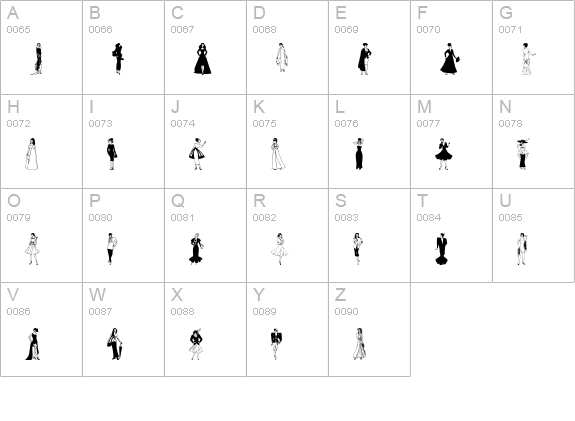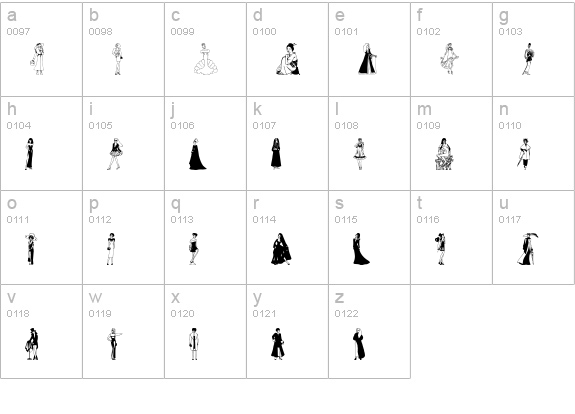
Fashion Ladies Font Details
Fashion Ladies font is a stylish and elegant typeface that exudes sophistication and femininity. With its delicate curves and graceful lines, this font is perfect for adding a touch of glamour to any design project. Whether you're working on a fashion magazine, a beauty blog, or a wedding invitation, Fashion Ladies font will elevate your text with its chic and modern aesthetic. The best part? Fashion Ladies font is completely free to download at FontsMarket.com. You can easily access this fabulous font and use it in your personal and commercial projects without any restrictions. So why wait? Add a touch of luxury to your designs with Fashion Ladies font today!